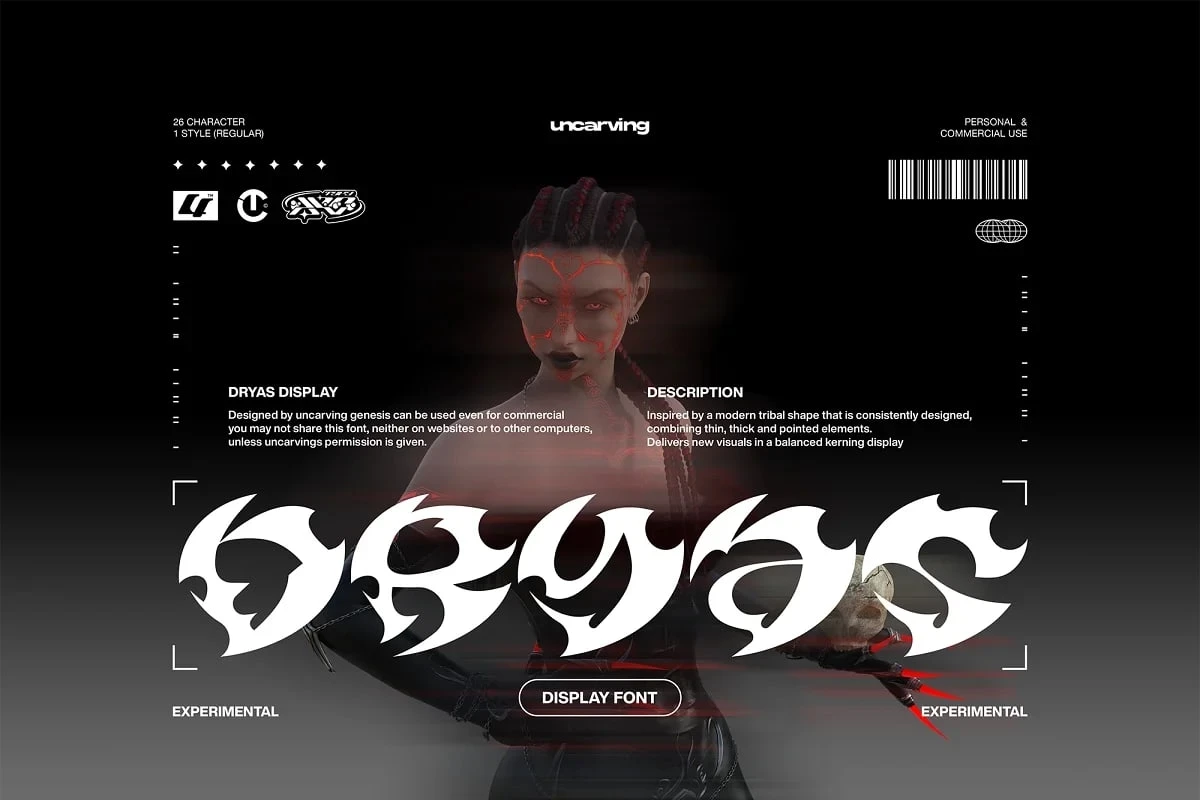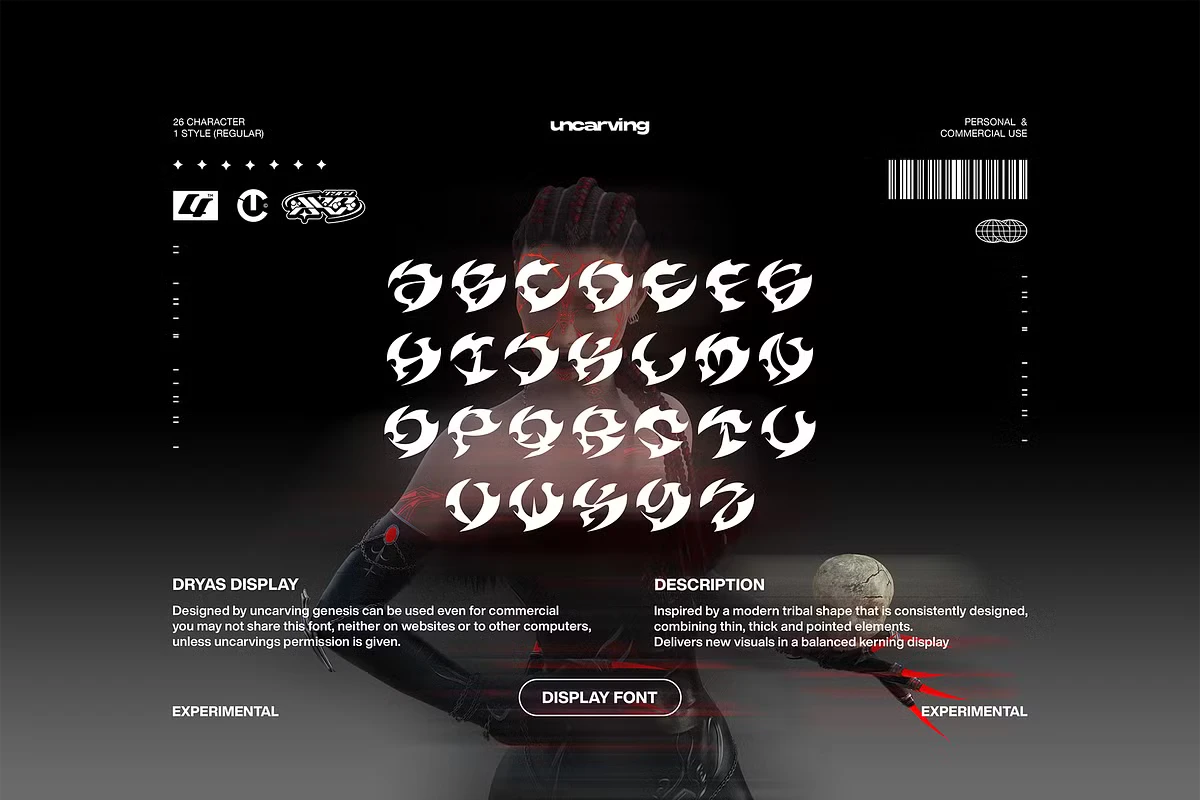
Meet Dryas – Display Font, a bold and decorative typeface that brings a vintage tribal aesthetic to your projects. Whether you’re designing logos, posters, or branding materials, this modern display font adds a unique, handcrafted feel that stands out.
Dryas is a creative display font designed by Uncarving Genesis. It blends retro and tribal influences with a bold, modern silhouette, making it perfect for designers who want to make a statement. This font works seamlessly in both digital and print media, giving your text a distinctive edge.
- ✅ Bold Display Style → Grabs attention instantly for headlines and logos.
- ✅ Vintage Tribal Design → Adds a unique, handcrafted aesthetic to your work.
Dryas stands out because of its distinctive tribal-inspired letterforms. It’s not just another display font—it’s a conversation starter. Plus, you get full commercial rights, so you can confidently use it in branding, merchandise, and more. The font is crafted with care, ensuring clean curves and consistent spacing for professional results.